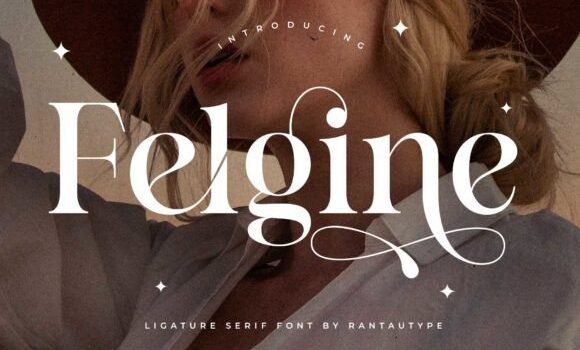
felgine
Felgine Font – Free Download Introduction to Felgine Font Felgine is a chic & elegant display serif font with a beautiful contrast. 📸 Preview Gallery 6 images 📌 Product Name Felgine Font 👤 Author RantauType 📂 Category Explore ⬇️ Download